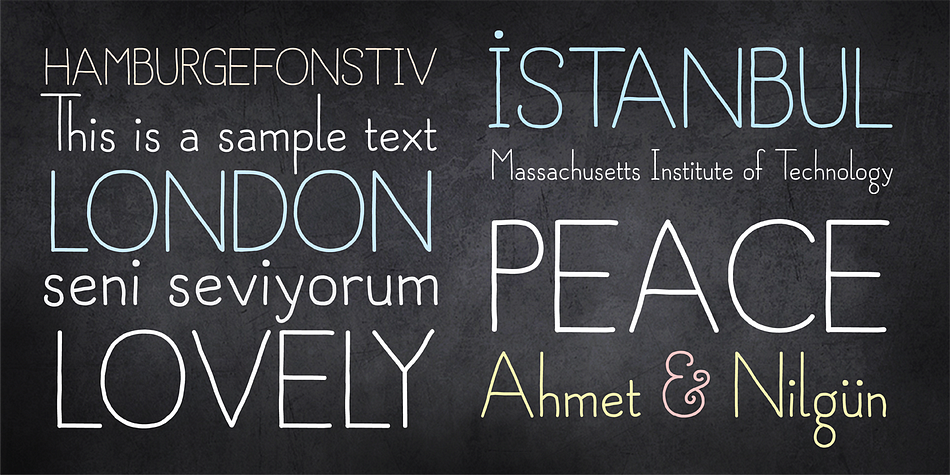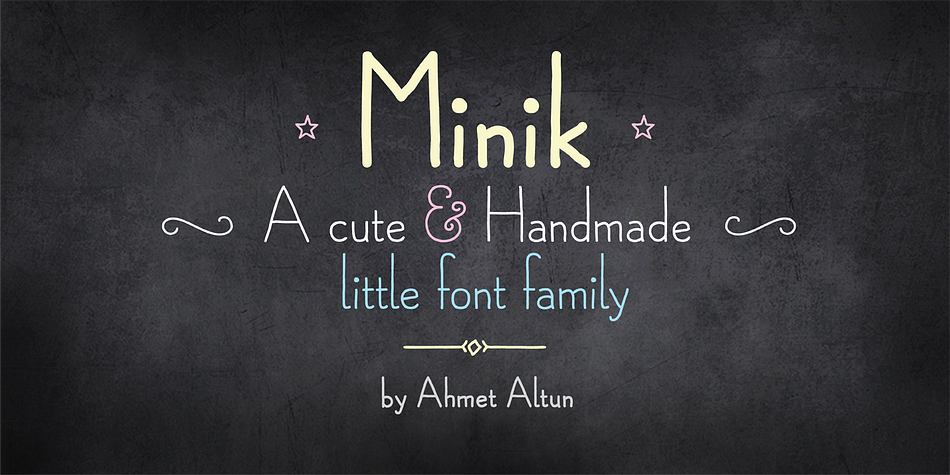
Minik is a hand drawn font family. This typeface has two styles and was published by Ahmet Altun.
The Minik Font Family comes in 2 weights: Regular and Bold. It is completely hand-drawn. While the capital letters have normal sizes, the lowercase letters are smaller than the common form in the vertical axis to have a cute view.
The Minik Font Family has a few ornaments and stylistic alternates. With this font family, you can create eye-pleasing and nice works such as posters, printings, t-shirts, adds, magazines etc.